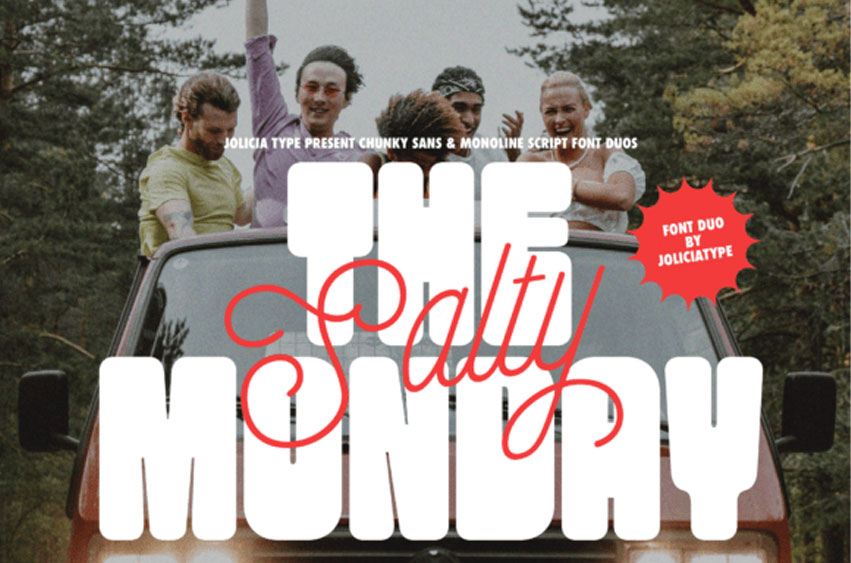
The Salty Monday Font
The Salty Monday Font is a dynamic font duo that blends the bold energy of a chunky sans with the relaxed charm of a monoline script, creating a distinctive and full-of-character typeface.
The chunky sans brings a confident, eye catching presence perfect for headlines, logos, and designs that demand instant impact. Meanwhile, the monoline script adds a warm, personal touch, introducing a sense of elegance and human connection to any composition.
Whether you’re aiming for a laid-back yet standout look, The Salty Monday is the perfect choice to elevate your design.